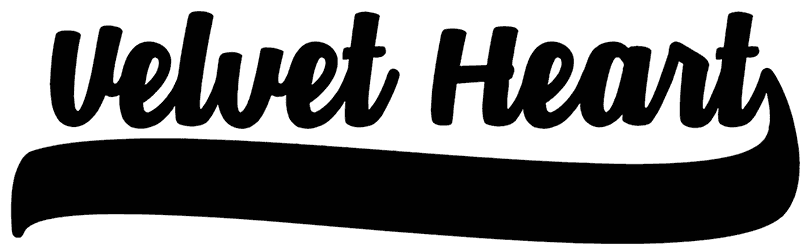
Velvet Heart Font
For the most part, having a state-of-the-art style of art will make your present design unique, and Velvet Heart will make it. As an old school font with thick letterform, it has two versions and can throw in some mellow and lovely mood to the context. This swash font doesn’t contain all uppercase, meanwhile can beautifully trim many designs like logotypes, posters, magazines, and more.
Velvet Heart is a thick script with soft corners and lots of extras! Comes with a swashes font with various lengths of swashes in two weights, and fun wings!